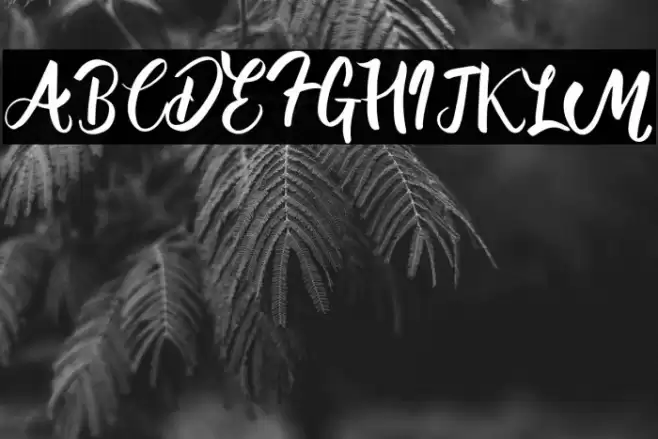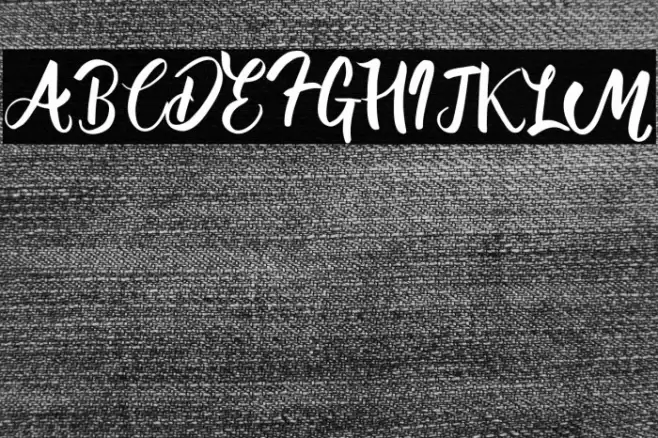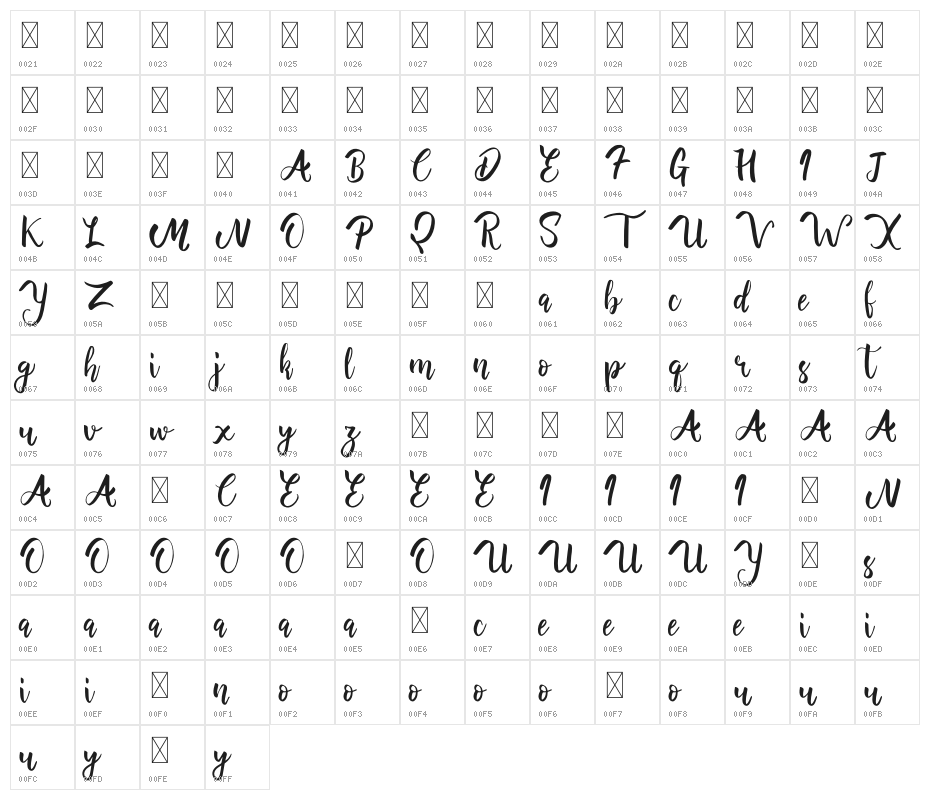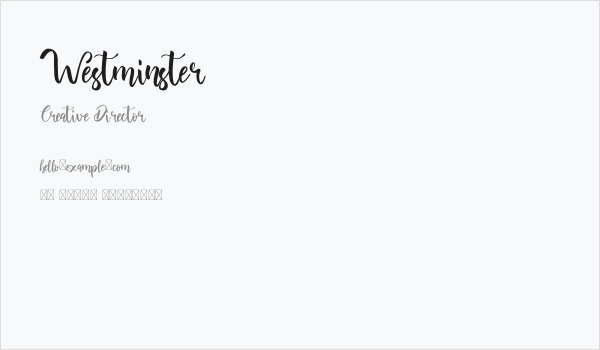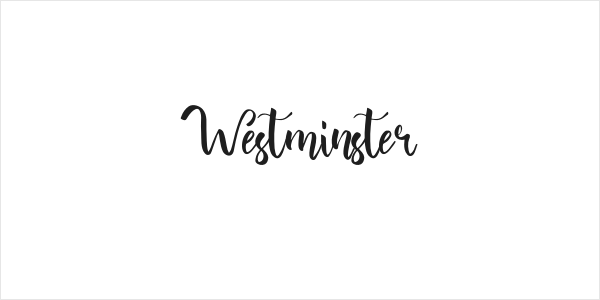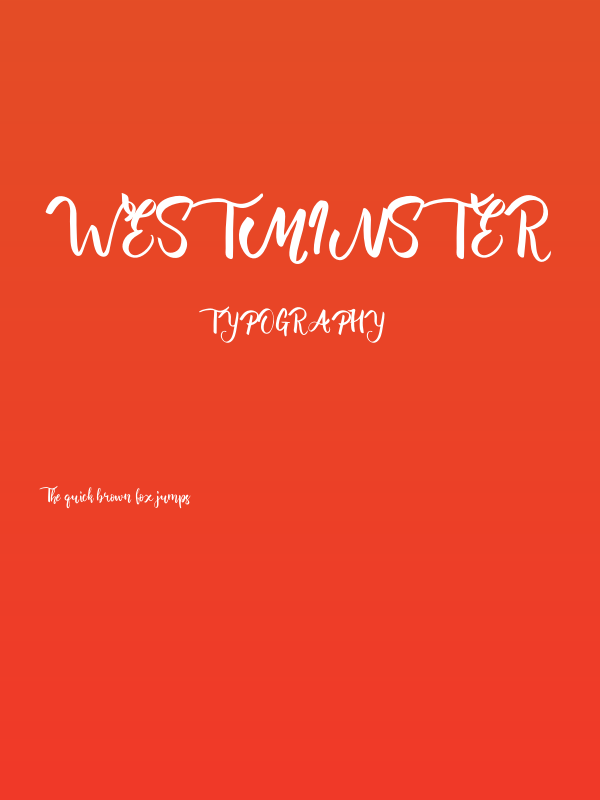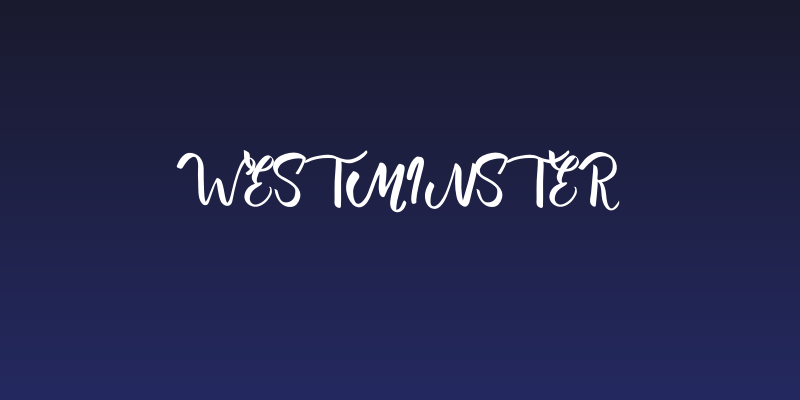
Westminster Font
Westminster Description
This font features a flowing, cursive style with a modern twist. The characters are connected, giving it a handwritten appearance that is both elegant and casual. The uppercase letters are bold and prominent, while the lowercase letters maintain a consistent flow with slightly exaggerated loops and curves. The absence of special characters suggests a focus on alphabetic expression. The overall design is suitable for creative projects that require a personal touch, such as invitations or branding materials.
A modern, cursive font with a handwritten, elegant style from Uncategorized fonts.
- Font: Westminster
- Proposed Projects: Ideal for wedding invitations, greeting cards, personal branding, and creative logos.
- Use Case: Logos, Invitations, Greeting Cards